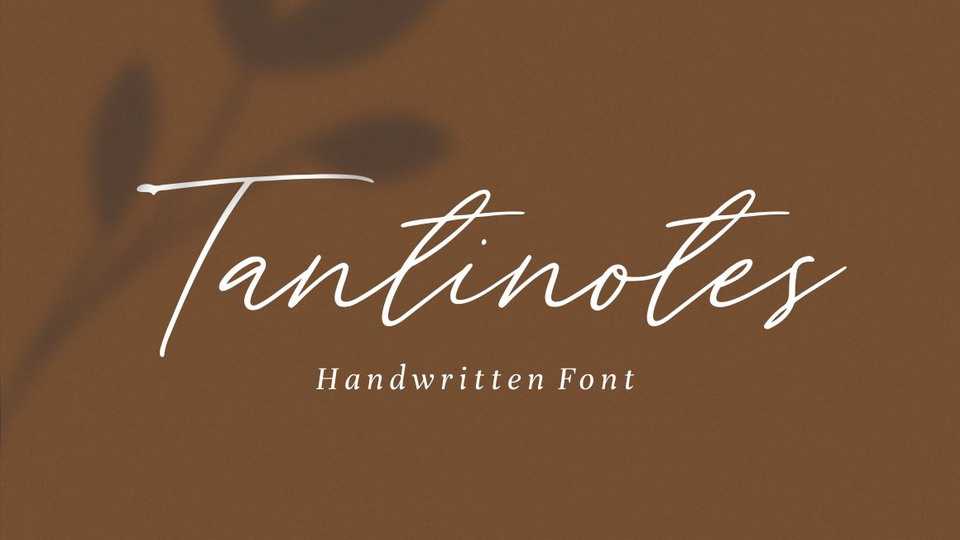
Download Tantinotes font, a natural handwritten script with an elegant signature style. Perfect for logo, invitation, stationery, wedding designs, social media posts, advertisements, product packaging, product designs, label, photography, watermark, special events or anything.